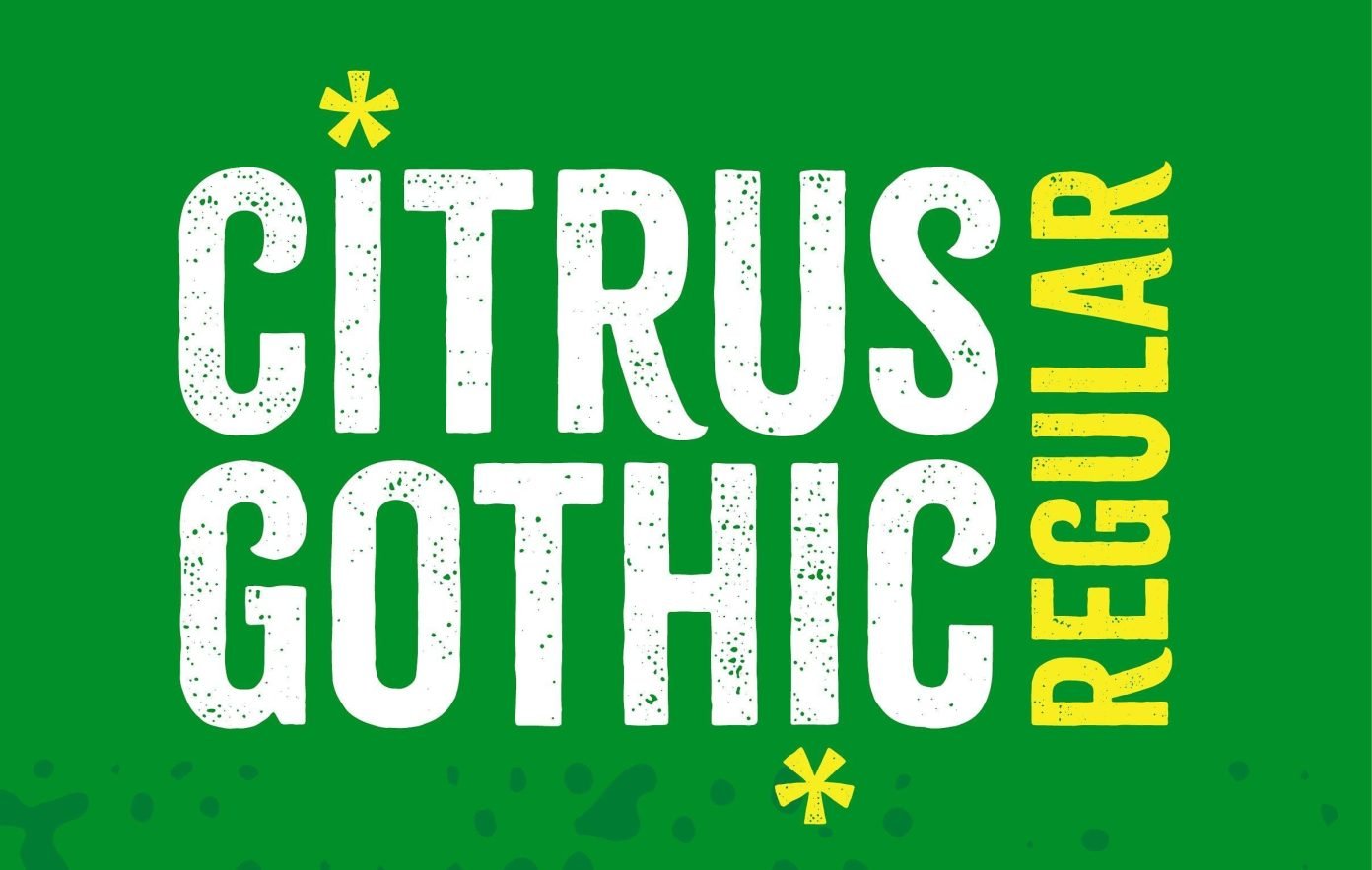
Citrus Gothic Font
Citrus Gothic Font - A sans serif typeface with 10 styles, available from adobe fonts for. It has solid, texture, inline, rough, shadow, and italic. Web citrus gothic is a hand drawn, distinct gothic sans font family with 10 styles. Web windows , macos , linux , photoshop , web site. The font is available in all formats. Web explore citrus gothic designed by adam ladd at adobe fonts.
Web citrus gothic is a hand drawn, distinct gothic sans font family with 10 styles. The font is available in all formats. It has solid, texture, inline, rough, shadow, and italic. A sans serif typeface with 10 styles, available from adobe fonts for. Web windows , macos , linux , photoshop , web site. Web explore citrus gothic designed by adam ladd at adobe fonts.
Web explore citrus gothic designed by adam ladd at adobe fonts. Web citrus gothic is a hand drawn, distinct gothic sans font family with 10 styles. The font is available in all formats. Web windows , macos , linux , photoshop , web site. A sans serif typeface with 10 styles, available from adobe fonts for. It has solid, texture, inline, rough, shadow, and italic.
Citrus Gothic Font Family By Adam Ladd
It has solid, texture, inline, rough, shadow, and italic. Web explore citrus gothic designed by adam ladd at adobe fonts. A sans serif typeface with 10 styles, available from adobe fonts for. Web windows , macos , linux , photoshop , web site. The font is available in all formats.
Citrus Gothic Font Family By Adam Ladd
It has solid, texture, inline, rough, shadow, and italic. Web citrus gothic is a hand drawn, distinct gothic sans font family with 10 styles. Web explore citrus gothic designed by adam ladd at adobe fonts. A sans serif typeface with 10 styles, available from adobe fonts for. Web windows , macos , linux , photoshop , web site.
Citrus Gothic Font Family By Adam Ladd
A sans serif typeface with 10 styles, available from adobe fonts for. Web citrus gothic is a hand drawn, distinct gothic sans font family with 10 styles. It has solid, texture, inline, rough, shadow, and italic. Web windows , macos , linux , photoshop , web site. Web explore citrus gothic designed by adam ladd at adobe fonts.
Web windows , macos , linux , photoshop , web site. Web explore citrus gothic designed by adam ladd at adobe fonts. A sans serif typeface with 10 styles, available from adobe fonts for. It has solid, texture, inline, rough, shadow, and italic. Web citrus gothic is a hand drawn, distinct gothic sans font family with 10 styles.
Citrus Gothic Font Family By Adam Ladd
Web citrus gothic is a hand drawn, distinct gothic sans font family with 10 styles. A sans serif typeface with 10 styles, available from adobe fonts for. It has solid, texture, inline, rough, shadow, and italic. Web windows , macos , linux , photoshop , web site. Web explore citrus gothic designed by adam ladd at adobe fonts.
Citrus Gothic Font Family By Adam Ladd
Web windows , macos , linux , photoshop , web site. Web citrus gothic is a hand drawn, distinct gothic sans font family with 10 styles. A sans serif typeface with 10 styles, available from adobe fonts for. Web explore citrus gothic designed by adam ladd at adobe fonts. It has solid, texture, inline, rough, shadow, and italic.
Citrus Gothic Font Family By Adam Ladd
Web citrus gothic is a hand drawn, distinct gothic sans font family with 10 styles. The font is available in all formats. Web windows , macos , linux , photoshop , web site. A sans serif typeface with 10 styles, available from adobe fonts for. Web explore citrus gothic designed by adam ladd at adobe fonts.
Citrus Gothic Font Family By Adam Ladd
Web citrus gothic is a hand drawn, distinct gothic sans font family with 10 styles. It has solid, texture, inline, rough, shadow, and italic. The font is available in all formats. A sans serif typeface with 10 styles, available from adobe fonts for. Web windows , macos , linux , photoshop , web site.
Citrus Gothic Font Family By Adam Ladd
It has solid, texture, inline, rough, shadow, and italic. The font is available in all formats. Web explore citrus gothic designed by adam ladd at adobe fonts. A sans serif typeface with 10 styles, available from adobe fonts for. Web windows , macos , linux , photoshop , web site.
Web windows , macos , linux , photoshop , web site. It has solid, texture, inline, rough, shadow, and italic. Web explore citrus gothic designed by adam ladd at adobe fonts. A sans serif typeface with 10 styles, available from adobe fonts for. The font is available in all formats.
Web windows , macos , linux , photoshop , web site. It has solid, texture, inline, rough, shadow, and italic. A sans serif typeface with 10 styles, available from adobe fonts for. Web explore citrus gothic designed by adam ladd at adobe fonts.